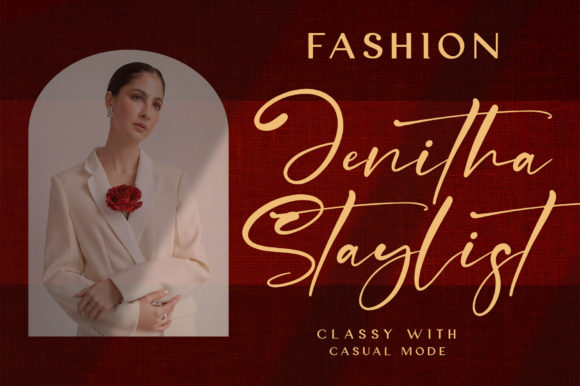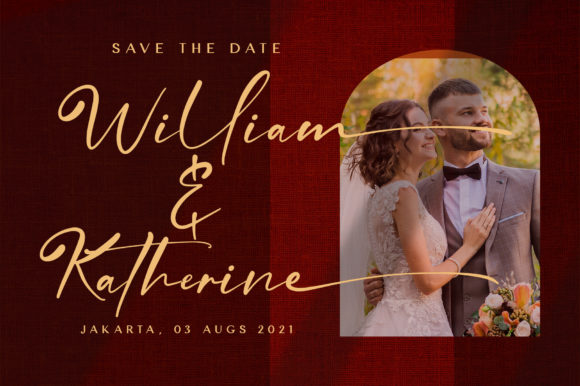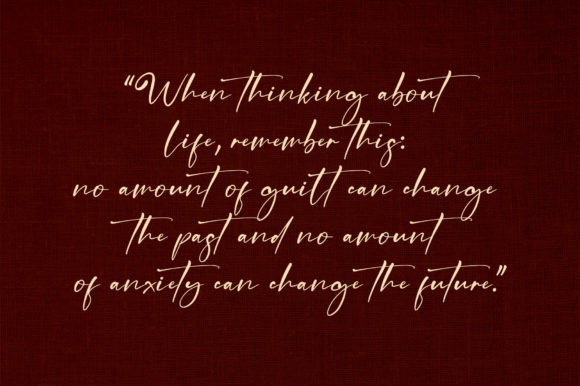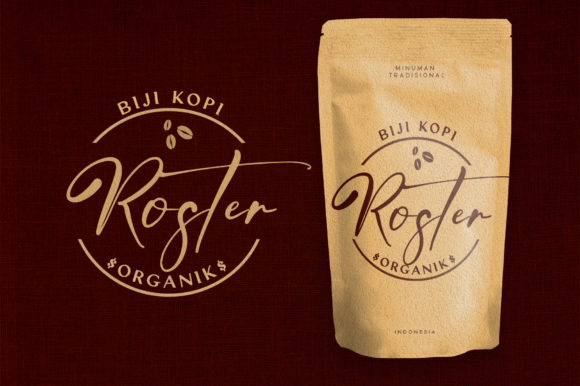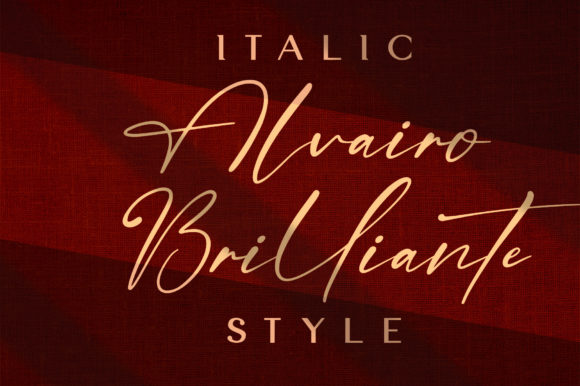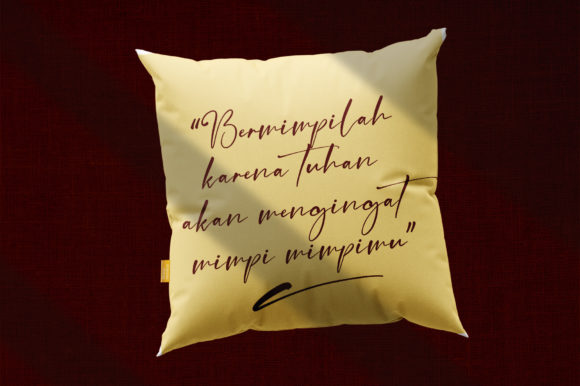
The Elusive Font: A Designer’s Journey with Alvairo Brilliante
I still remember the frustration of working on a project, pouring my heart and soul into every detail, only to hit a roadblock: finding the perfect font. My client wanted something elegant, yet playful; delicate, yet impactful. I scoured the internet, tried countless fonts, but nothing seemed quite right. That was until I stumbled upon Alvairo Brilliante. ✨
This beautiful, handwritten font has been a game-changer for my design projects, and I’m excited to share my experience with you. In this article, we’ll dive into the world of Alvairo Brilliante, exploring its features, uses, and some helpful tips and tricks.
An Honest Review of Alvairo Brilliante
- ✨ Delicate and elegant: Alvairo Brilliante’s flowing lines and beautiful character balance make it perfect for a wide range of designs.
- ✅ Versatile: This font matches well with various design styles, from modern to vintage.
- 💫 Unique: Alvairo Brilliante’s distinctive features set it apart from other handwritten fonts.
While Alvairo Brilliante is an amazing font, there are a few things to keep in mind: ⚠️
- 🤔 Limited use in very large or very small sizes: Alvairo Brilliante shines in medium to large sizes, but may lose some of its elegance when scaled down or up.
- ⚠️ Some characters may require manual kerning: While the font is generally well-spaced, some character combinations might need a little extra attention.
A Practical Guide to Using Alvairo Brilliante
- Experiment with OpenType features, such as ligatures and stylistic alternates, to add some extra flair to your design.
The Story Behind Alvairo Brilliante
Alvairo Brilliante was designed with the intention of creating a beautiful, elegant font that would add a touch of sophistication to any design. The designer aimed to craft a font that was both delicate and impactful, with a unique character that would set it apart from other handwritten fonts.
Q: What is Alvairo Brilliante’s personality?
A: Alvairo Brilliante is a delicate, elegant, and flowing handwritten font, perfect for designs that require a touch of sophistication.
Q: Is Alvairo Brilliante suitable for body text?
A: While Alvairo Brilliante is beautiful, it’s best suited for headings, titles, or short paragraphs. Its delicate nature may not be ideal for long-form body text.